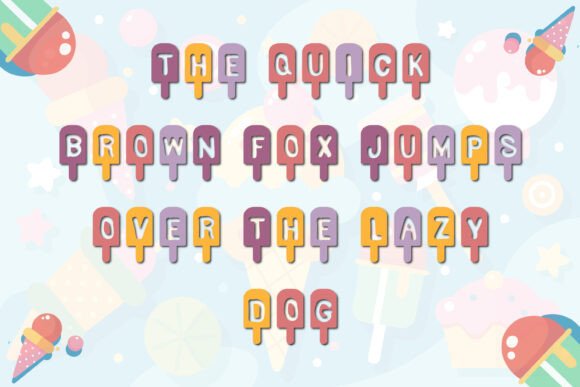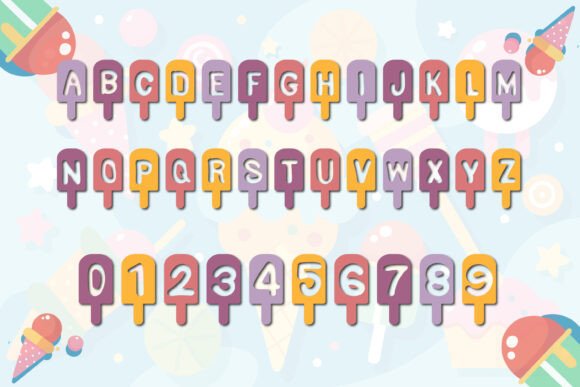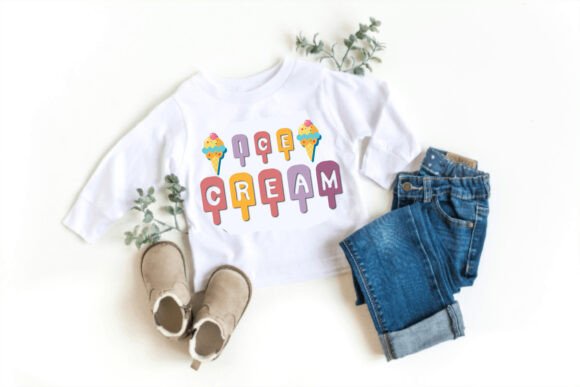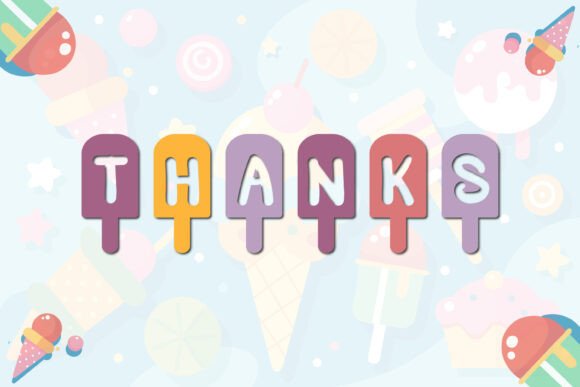
Unleash the Sweetness in Your Designs
You’ve spent hours brainstorming, sketching, and perfecting your creative vision, only to feel like something’s missing. That’s when the magic happens – the moment you stumble upon the perfect font. For designers seeking a touch of whimsy and playfulness, look no further than the delightful Ice Cream Font. This vibrant color font is more than just a stylish addition to your project; it’s a key to unlocking the true potential of your design.
Whether you’re crafting a brand identity, designing packaging, or creating a logotype, Ice Cream Font is the perfect companion. Its charming personality will elevate your designs, making them stand out in a crowded market. With its versatility and infectious joy, this font is sure to become a go-to choice for designers seeking to add a little magic to their work.
Key Features of “Ice Cream Font”
• Font Family: “Ice Cream Font” is a sans-serif typeface with a unique, rounded design.
• Unique Characteristics: Features a distinctive, rounded design with a playful and friendly feel, making it suitable for children’s products, food labels, and other applications where a fun and approachable tone is desired.
Ice Cream Font Review
Overall, I’d say the Ice Cream Font is a sweet treat, but it has its quirks. Let’s dive into what works well and what doesn’t.
• Cute and playful design: The font is perfect for adding a touch of whimsy to your designs.
• Good legibility: The font is easy to read, even at smaller sizes.
• Fun color options: The font comes in a range of colors that are sure to match your brand’s style.
• Limited flexibility: The font is quite bold and playful, which may not be suitable for all designs.
• No italic or bold variants: If you need to emphasize certain text, you’ll need to use a different font.
• Not suitable for body text: While the font is great for headlines and titles, it may not be the best choice for large blocks of text.
Overall, I think the Ice Cream Font is a great addition to any designer’s toolkit, but it’s essential to use it thoughtfully and in the right context. With a little creativity, this font can add a fun and playful touch to your designs.
The Ice Cream Font is perfect for:
• Celebrating special occasions, such as birthdays or weddings.
• Adding a playful touch to marketing materials or social media posts.
• Highlighting important information or creating a sense of excitement.
• Pair the font with other playful or whimsical elements to create a cohesive look.